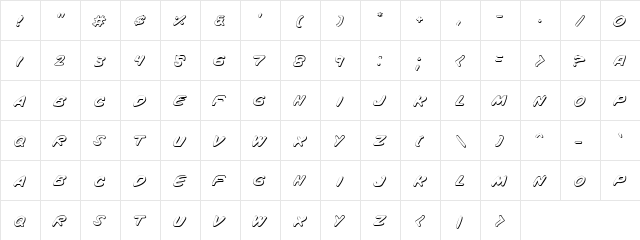
Vigilante Notes Shadow Shadow
Design Context for Vigilante Notes Shadow Typeface
Vigilante Notes Shadow brings ornamental detail and strong personality to headlines and identities, where visual impact matters more than quiet functionality.
Font Pairing: Pair with a clean neutral sans-serif for body copy to let Vigilante Notes Shadow's character lead without overwhelming the composition.
Pro Tip: Use Vigilante Notes Shadow exclusively at display sizes — it was designed to be seen, not read at length. Let a neutral companion handle body copy.